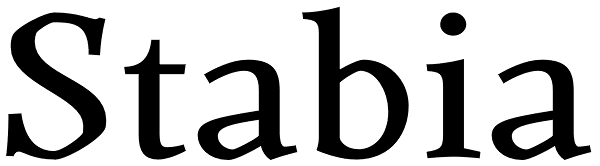
Stabia
Stabia is a multi-purpose typeface with large wedge-angular serifs. It is delicate and highly readable at very small sizes but reveals all its strength and personality when used at big sizes. The contrast of the sharped serifs provides a fresh and...